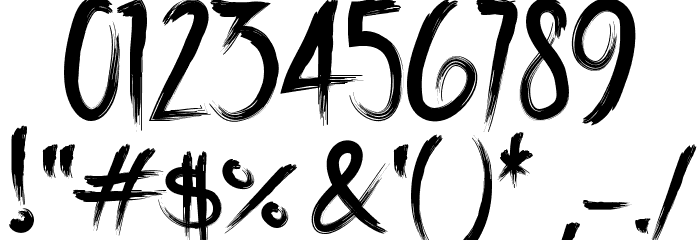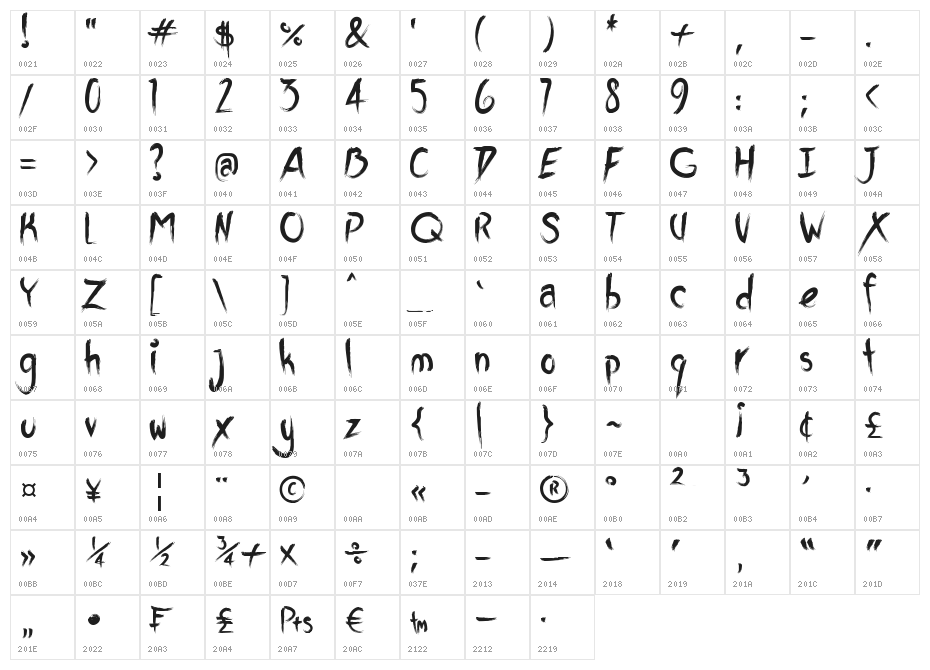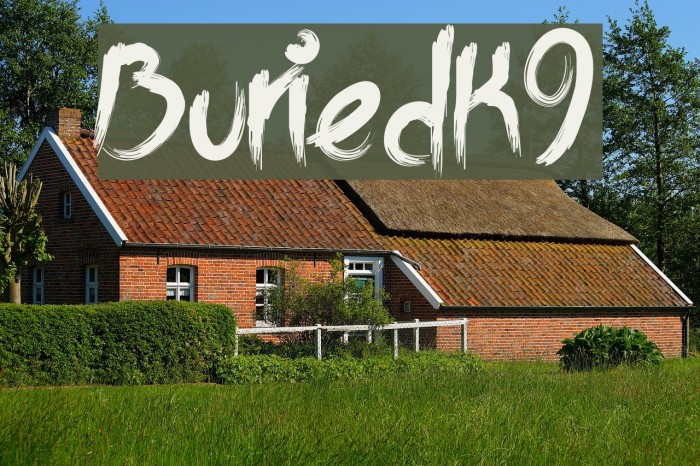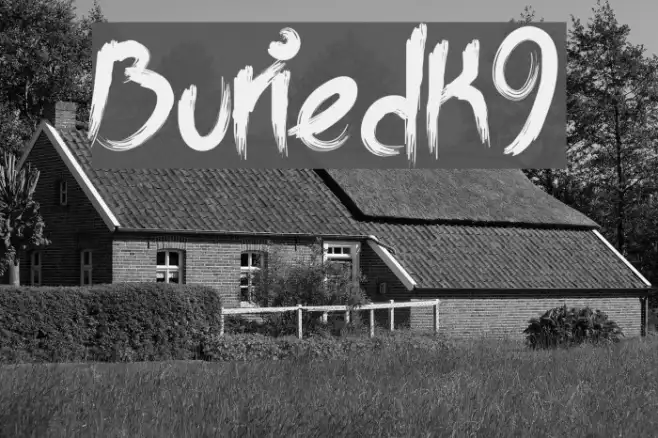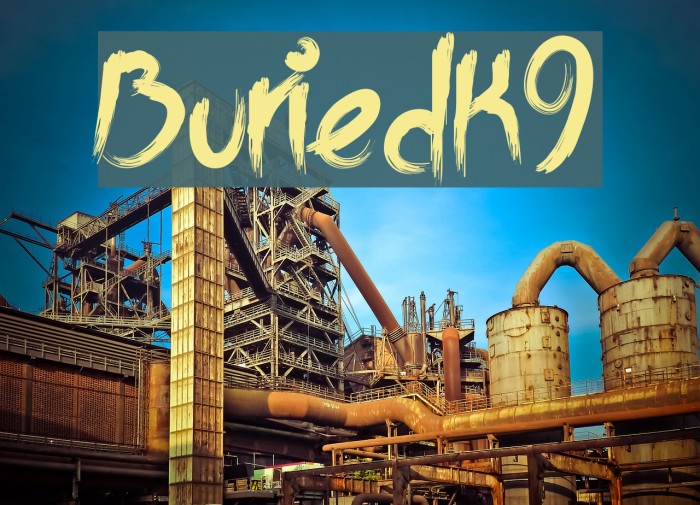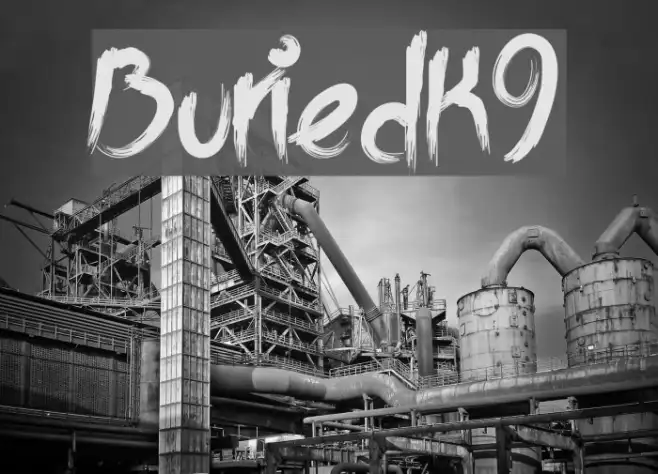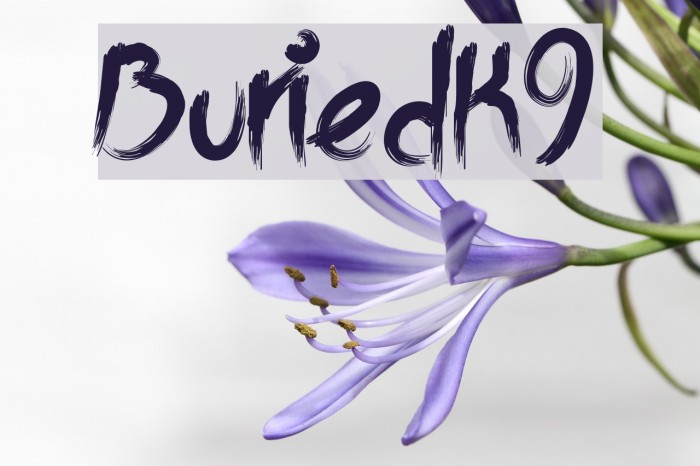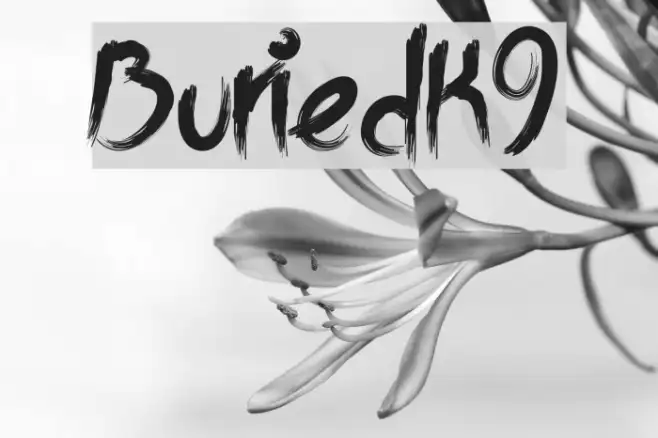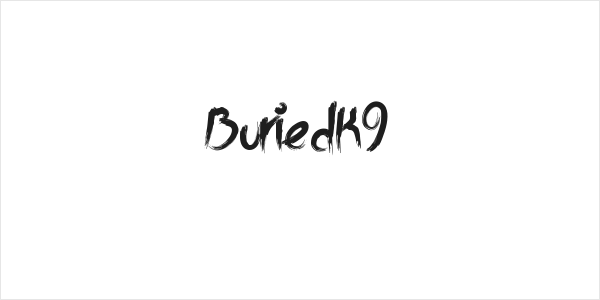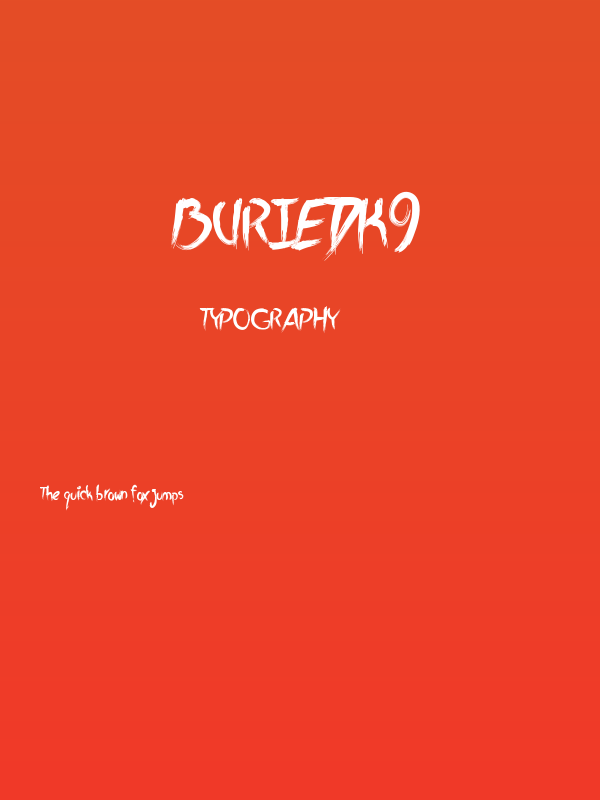
BuriedK9 Font
BuriedK9 Description
This font features a bold and expressive brushstroke style, characterized by its dynamic and energetic appearance. The letters have a rough, hand-painted look with irregular edges, giving it a raw and artistic feel. The uppercase and lowercase letters maintain a consistent style, with the uppercase being slightly more angular and pronounced. Numbers and special characters follow the same aesthetic, ensuring a cohesive look across all glyphs. The font's unique texture and bold presence make it stand out, ideal for projects that require a strong visual impact.
| Proposed Projects | Ideal for posters, album covers, branding, and any creative projects that require a bold, artistic touch. |